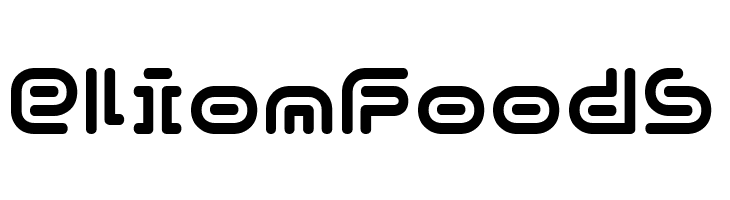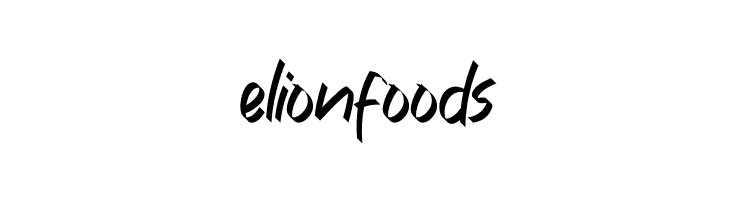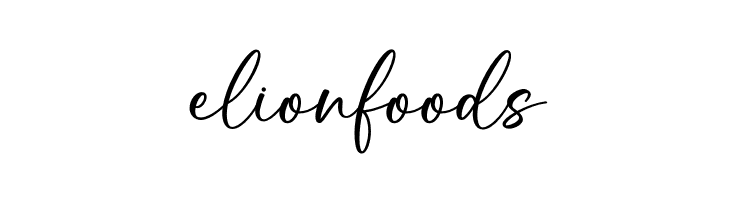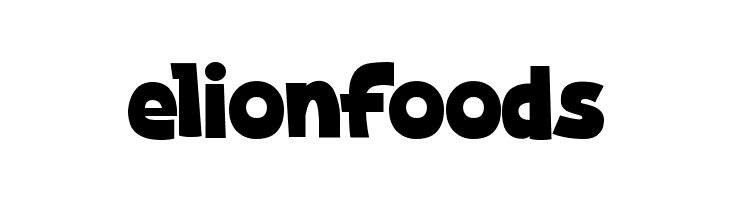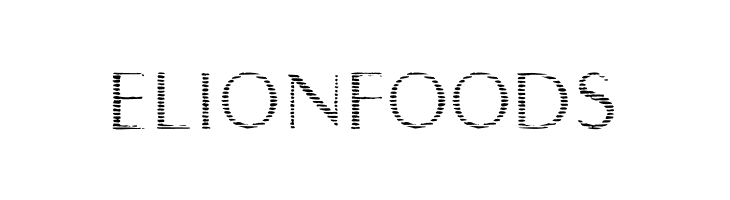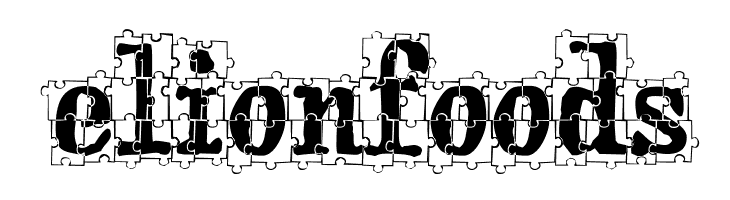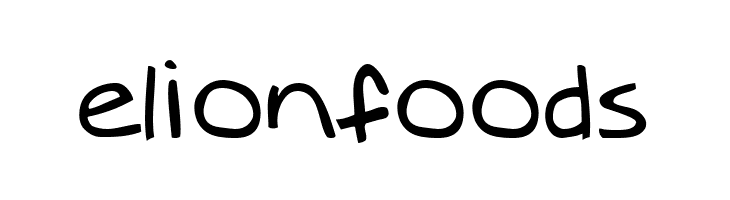
A bold, energetic script font with flowing strokes and a modern flair.
A playful, casual handwritten font with a whimsical and informal style.
Bold, brush-style font with a dynamic appearance.
Elegant cursive script with a handwritten feel.
A bold, rounded, playful display font with cartoonish character shapes.
A textured serif font with a modern, distressed look.
A futuristic, geometric font with rounded edges and consistent line thickness.